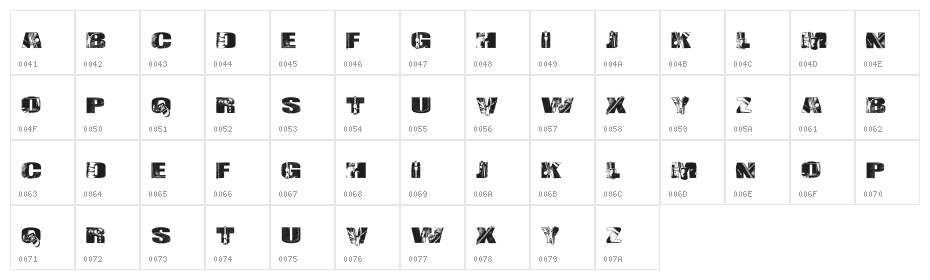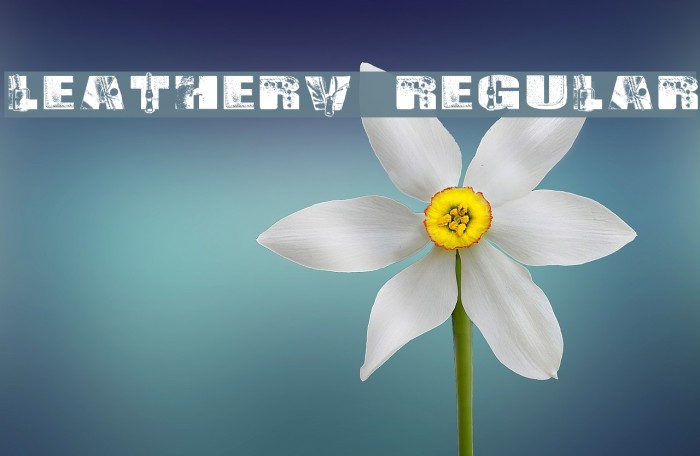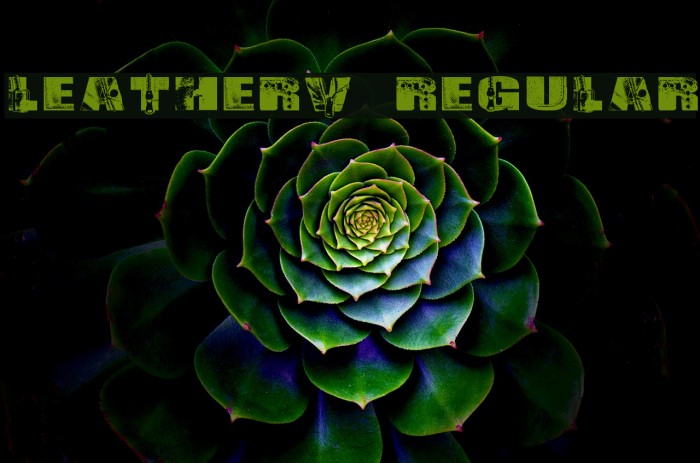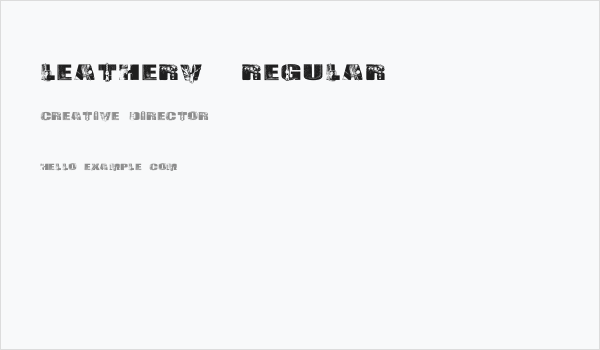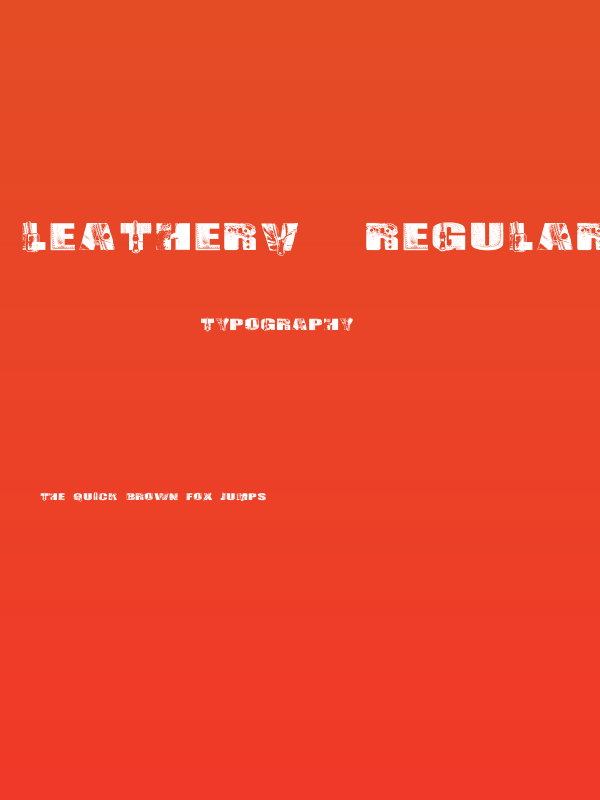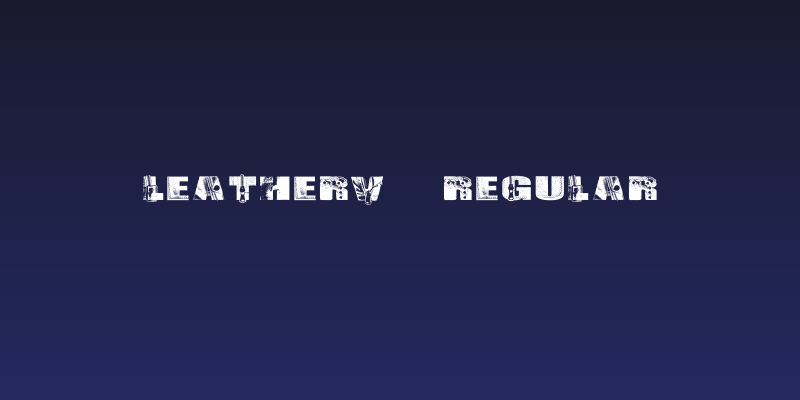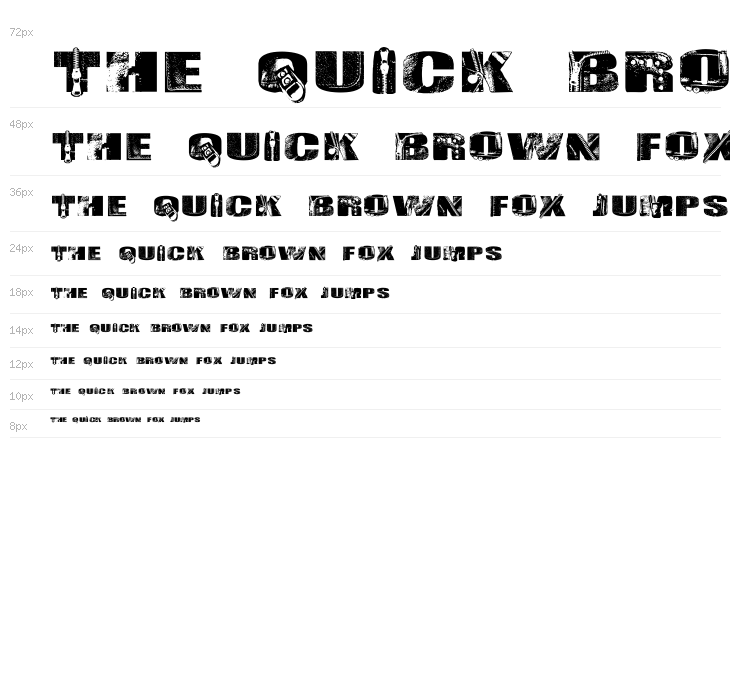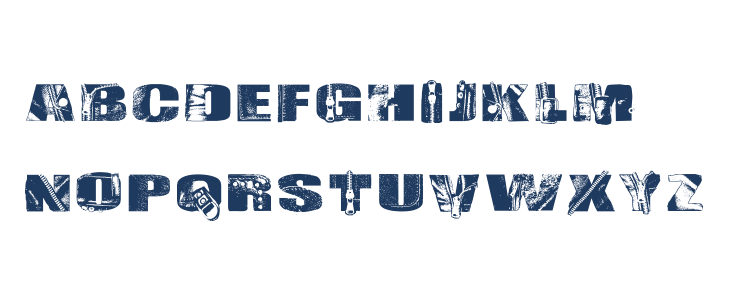
LeatherV2 Regular Font
LeatherV2 Regular Description
This font features a bold and rugged design with a distressed texture that gives it a vintage, industrial feel. Each character is uniquely styled with a worn, leather-like appearance, incorporating elements such as scratches and scuffs that add to its gritty aesthetic. The uppercase letters are particularly striking, with a strong presence that commands attention. The font's distinctive style makes it ideal for projects that require a bold statement or a touch of edginess. Its decorative nature is perfect for use in logos, posters, and other creative designs where a strong visual impact is desired.
| Overall Style | Vintage, Industrial |
| Use Case | Logos, Posters, Headlines |
| Proposed Projects | Ideal for logos, posters, album covers, and any design needing a bold, edgy look. |